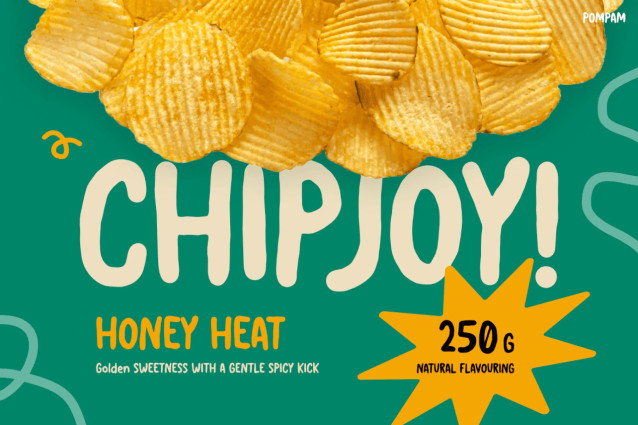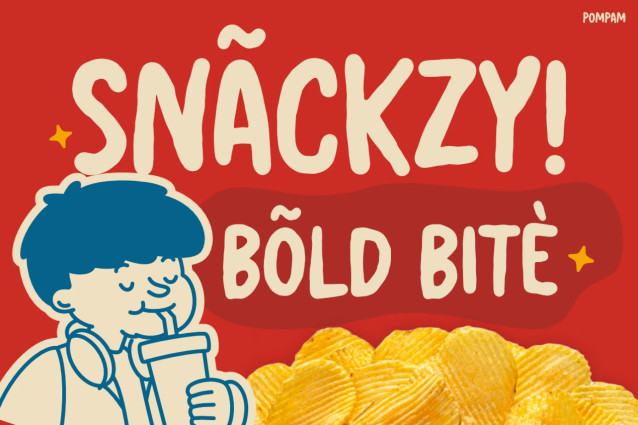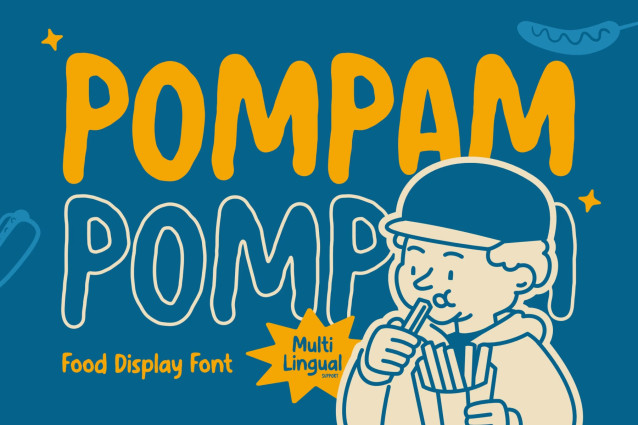
Pompam Font
Pompam Font is a playful, hand-drawn food display font with a soft, rounded aesthetic and a bouncy, casual rhythm. Its uneven letter heights and organic, slightly condensed shapes give it a friendly, handmade personality that feels instantly approachable and fun.
Best suited to snack packaging, food truck menus, cafe signage, kids’ book titles, and casual product labels. It is a natural fit for culinary branding, social media graphics, and event posters where a warm, lighthearted tone is needed.